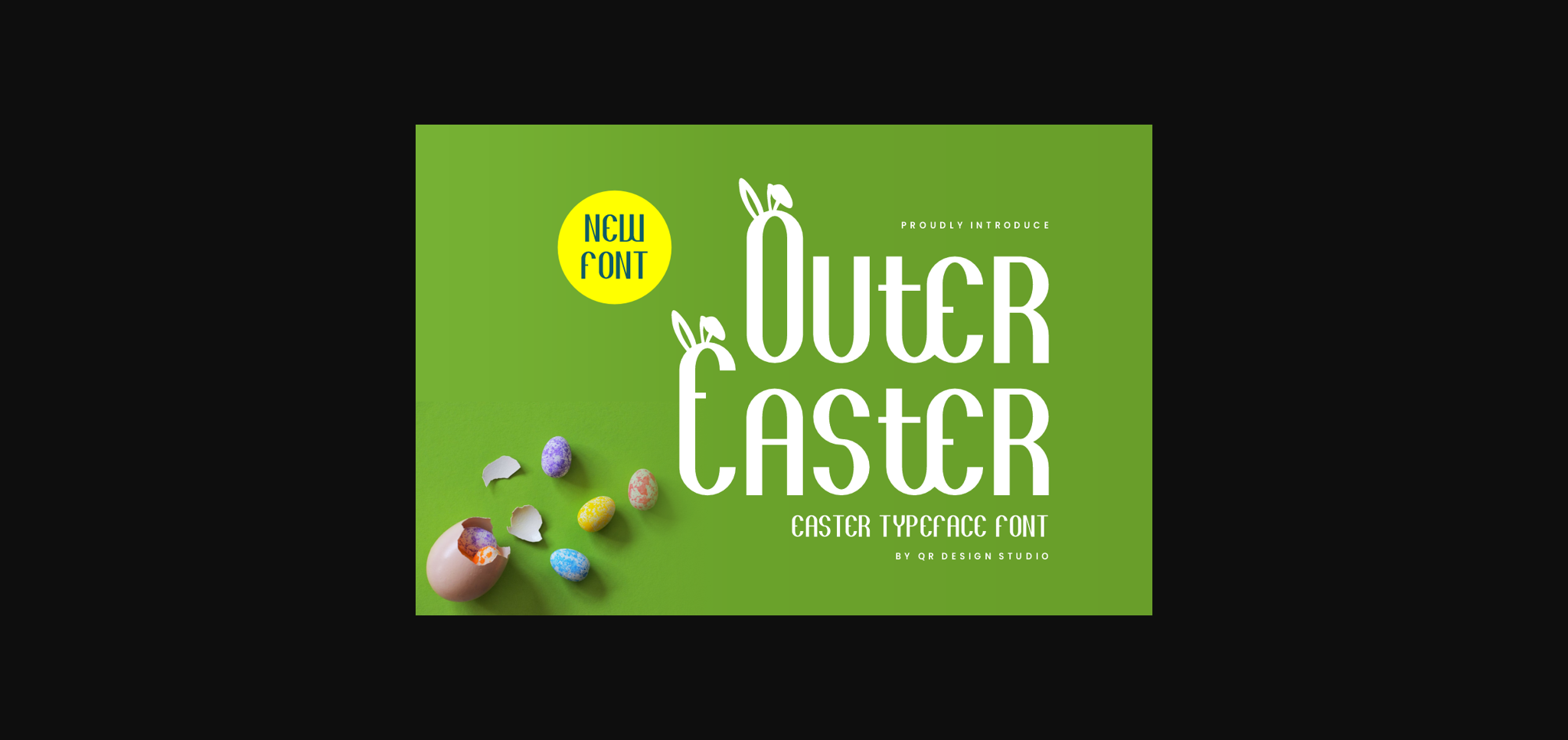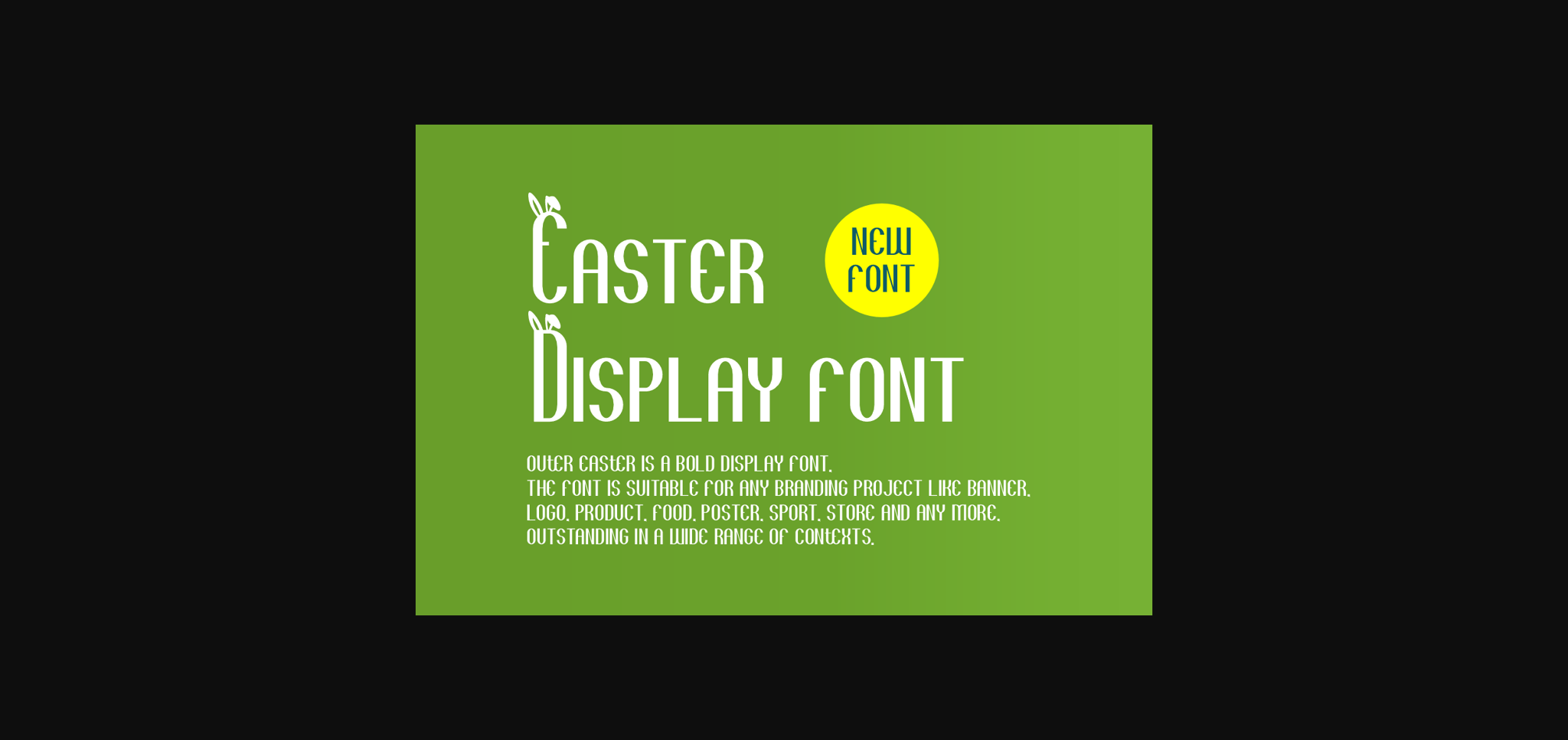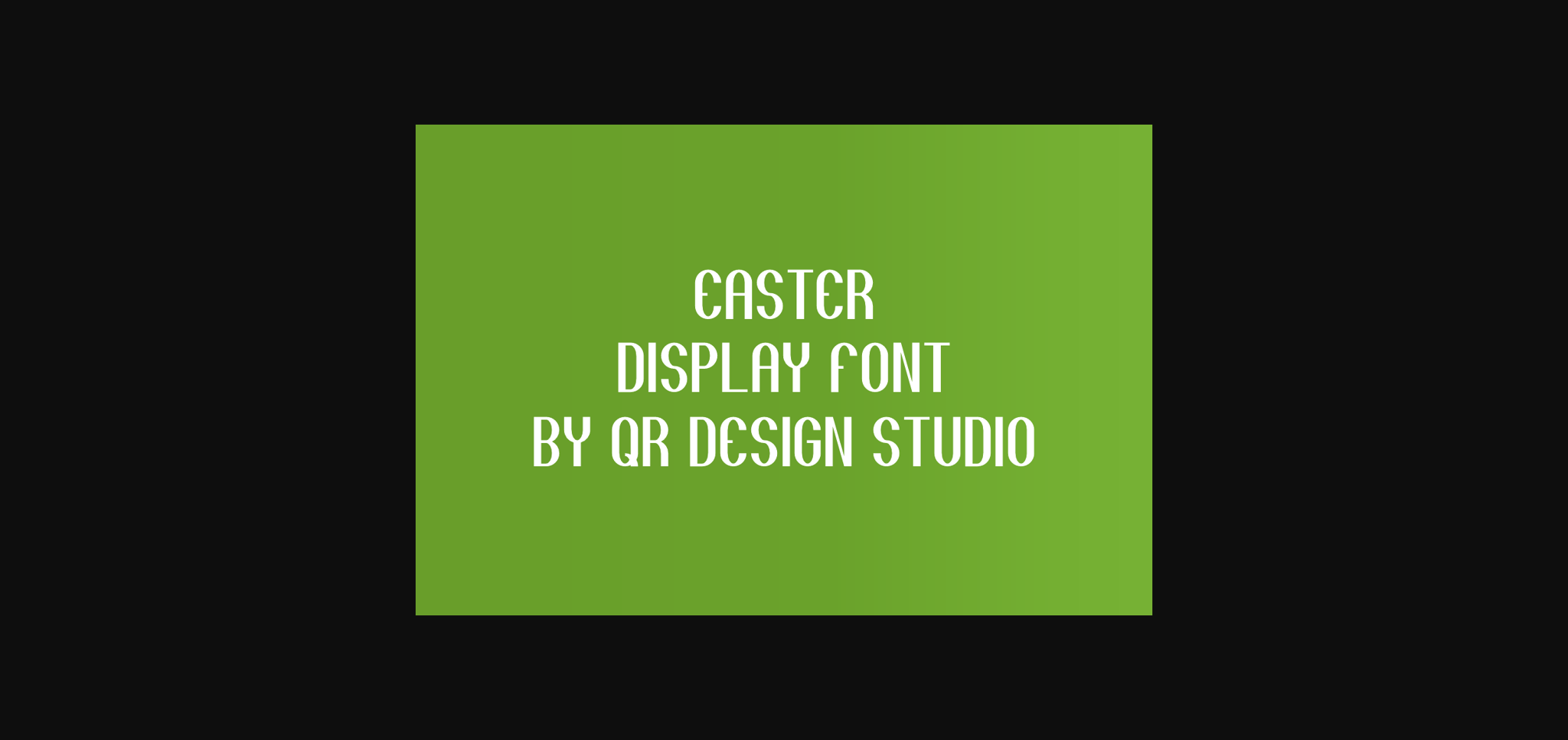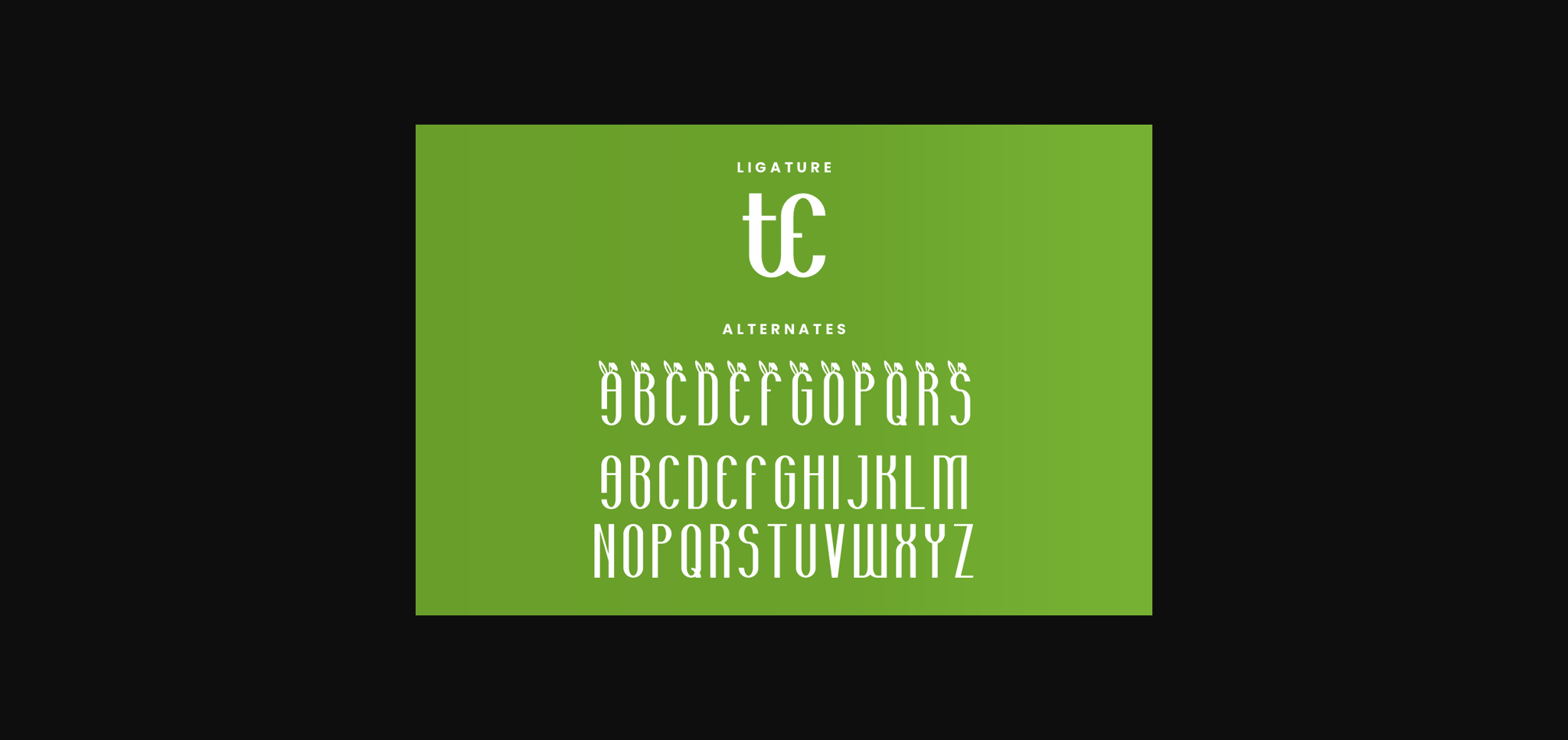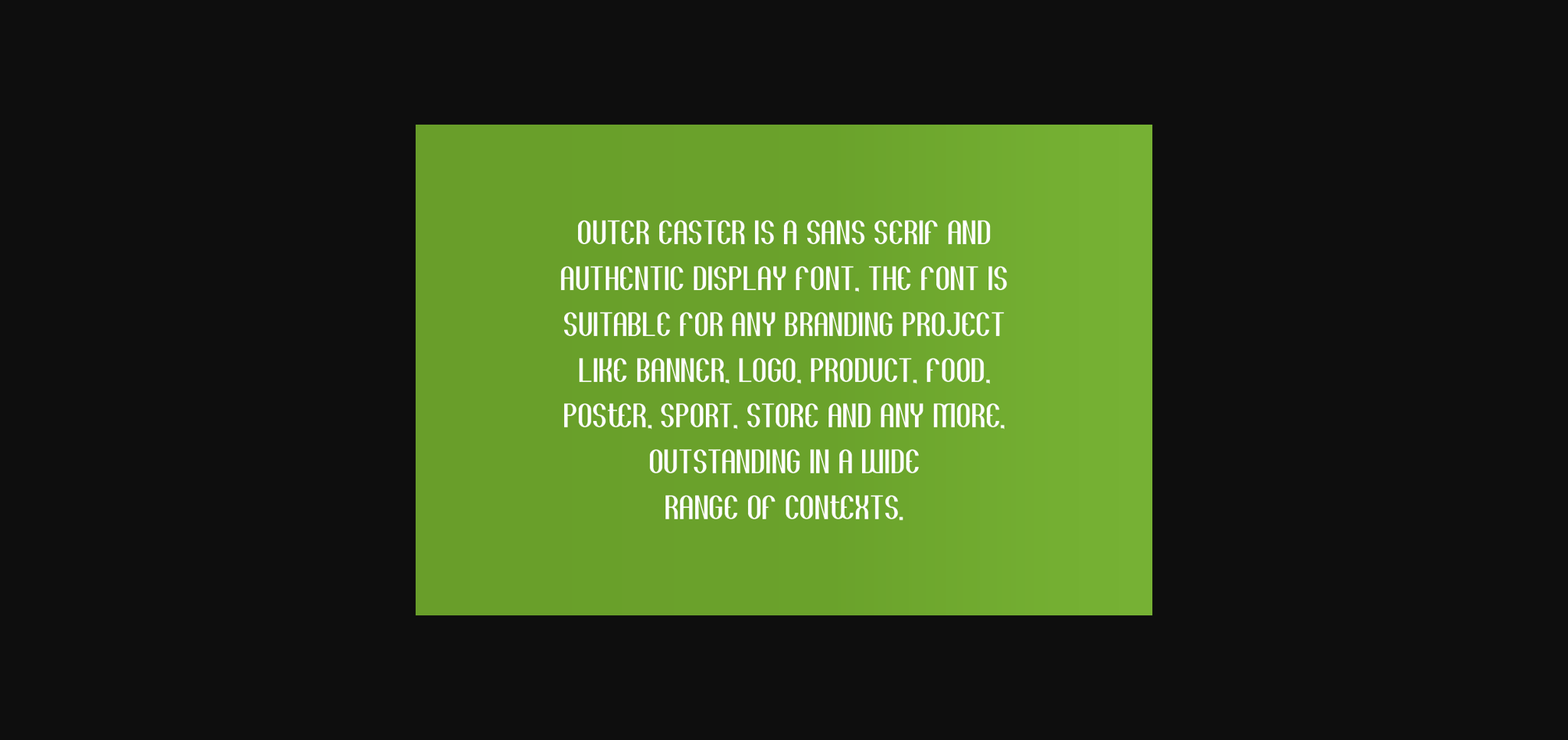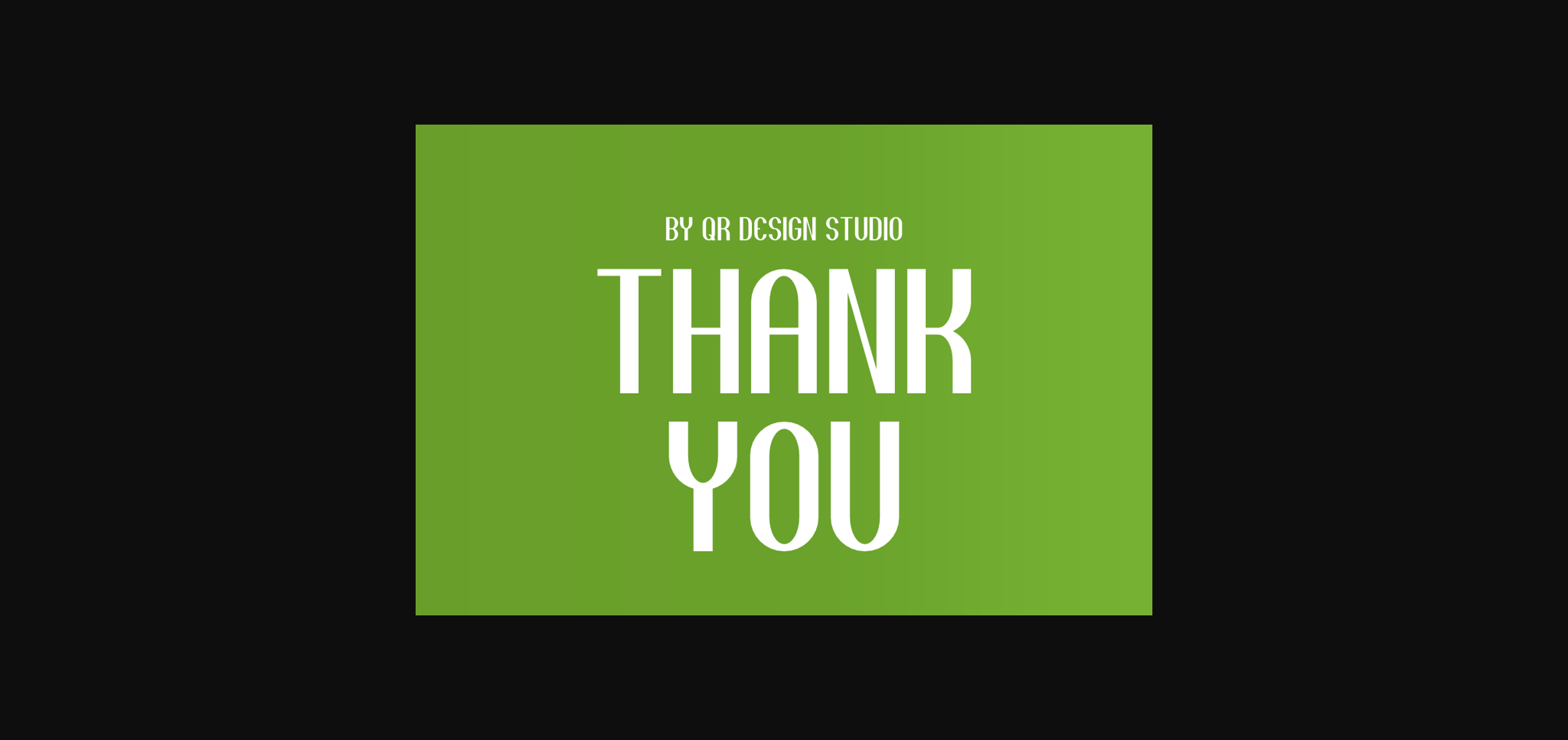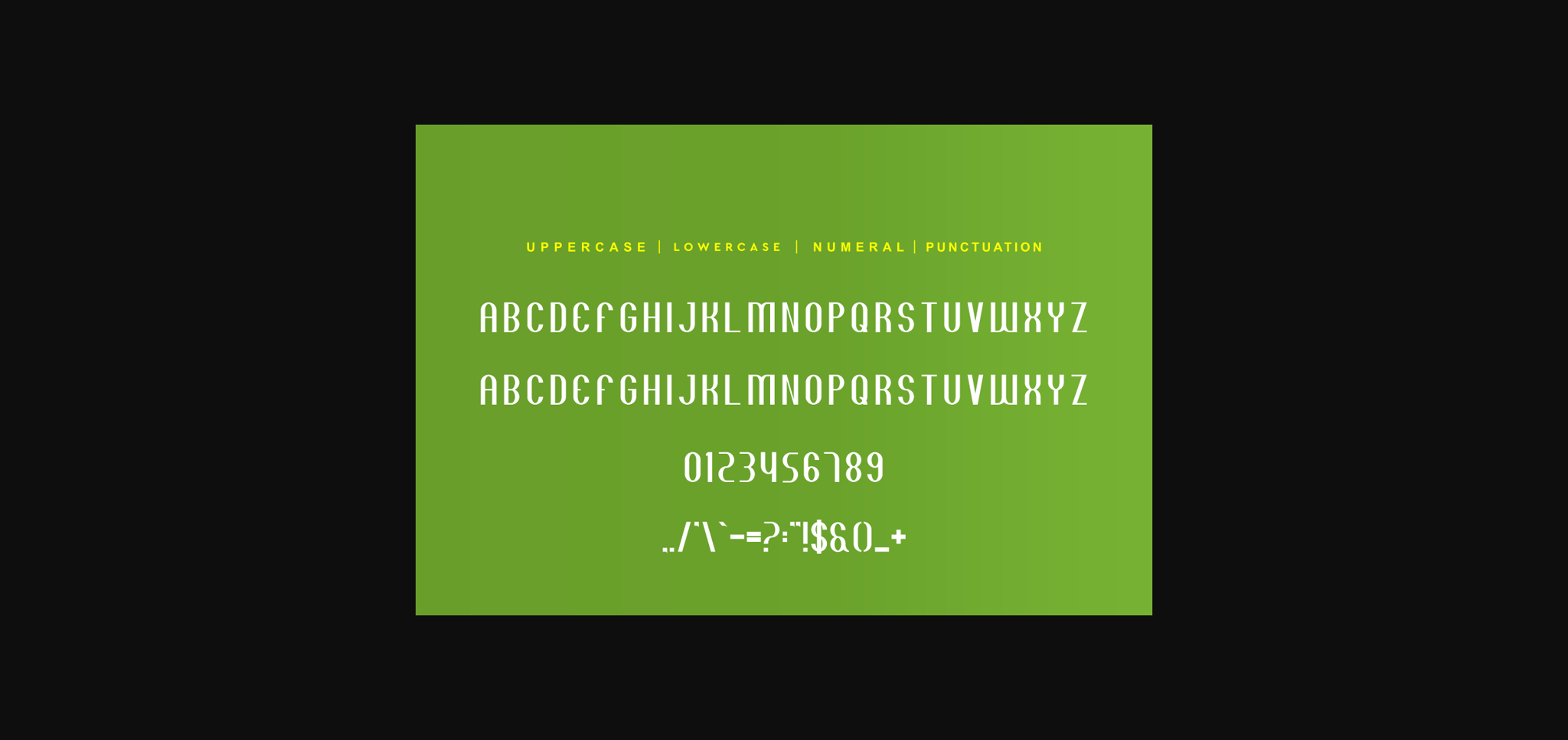
Outer Easter Font
About Outer Easter Font
Outer Easter is a fun and quirky sans-serif font. Whatever the topic, this font is perfect for all your creative ideas!